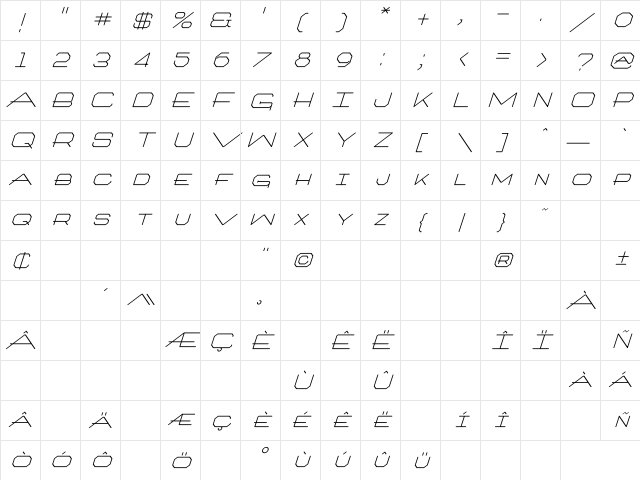
Architext Itali Regular Free Font
Architext Itali Regular
Design Context for Architext Itali
Architext Itali is a composed and adaptable typeface that performs quietly and consistently across a wide range of design contexts.